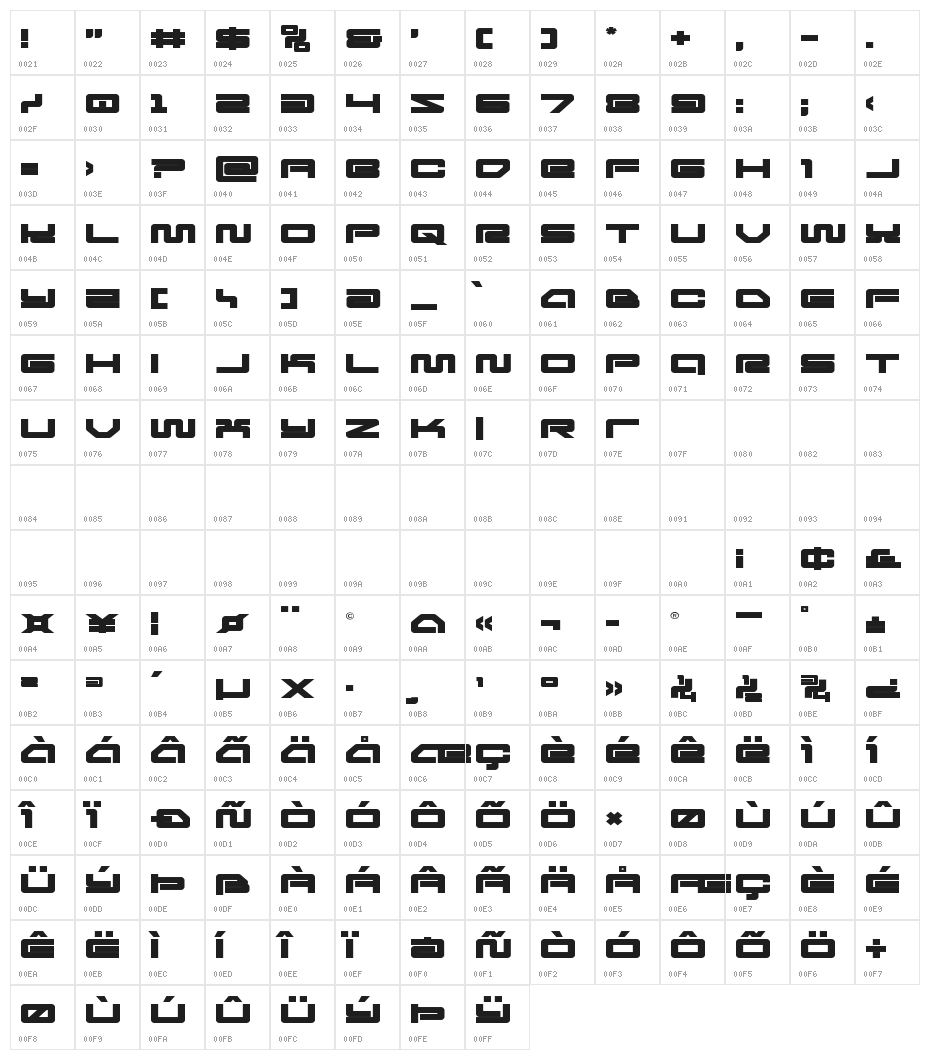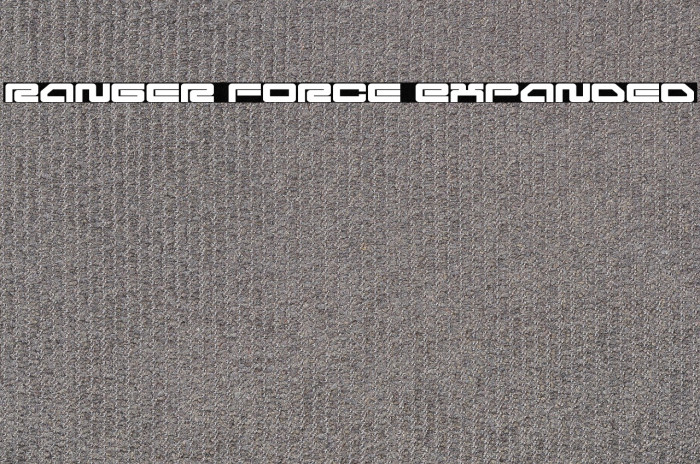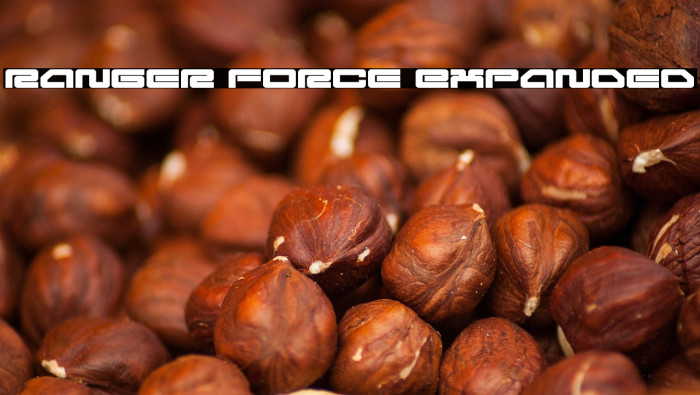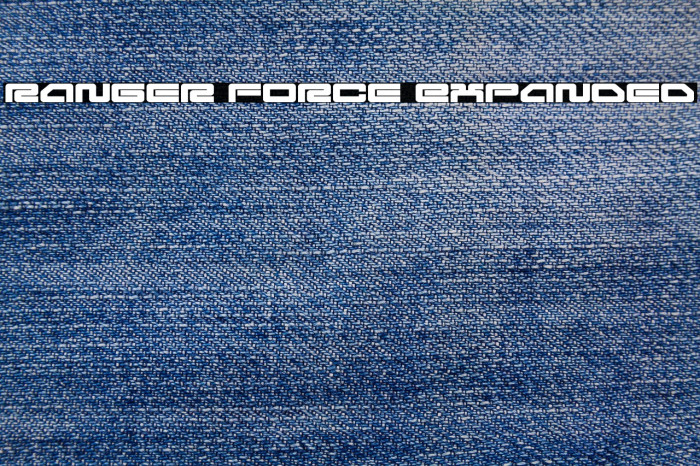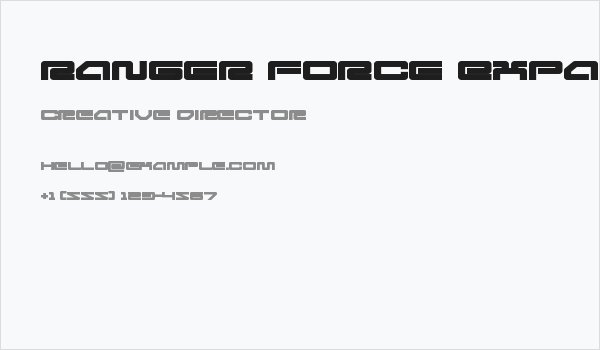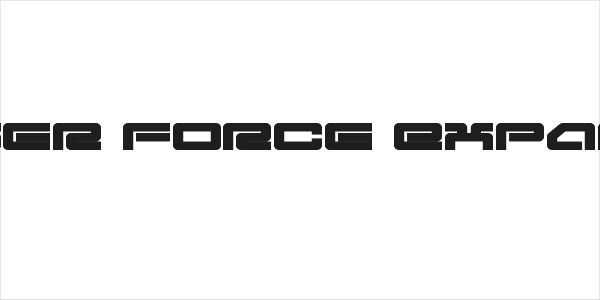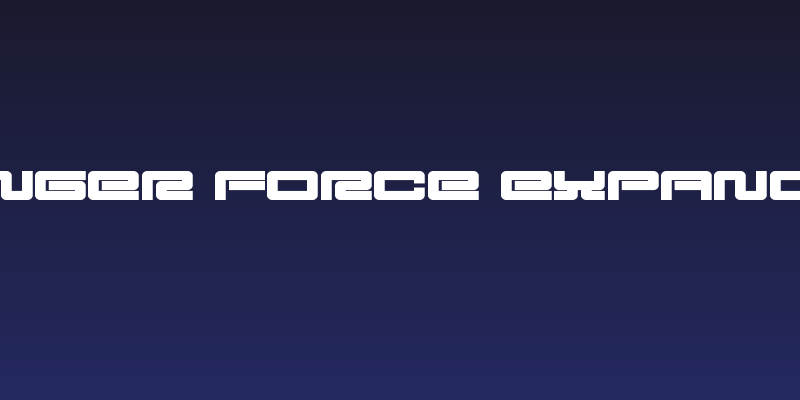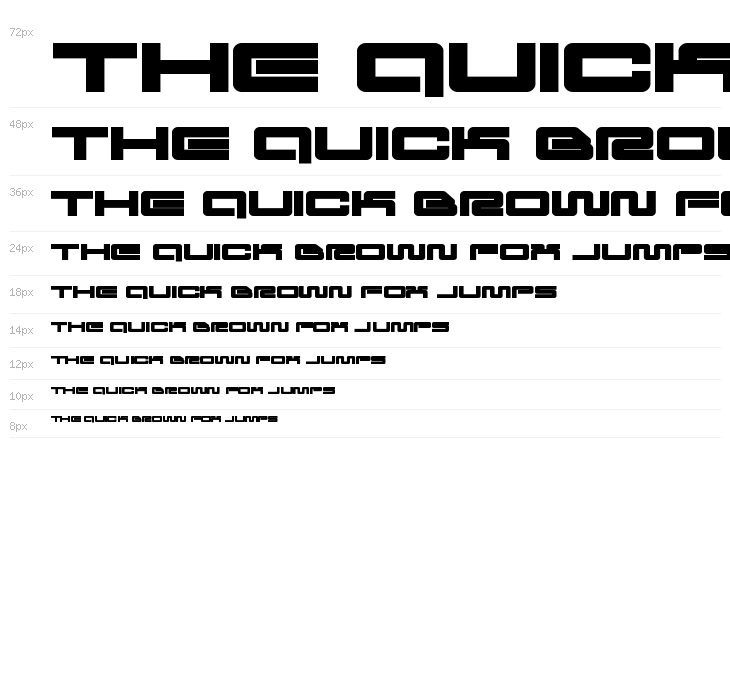
Ranger Force Expanded Font
Ranger Force Expanded Description
This font features a bold, futuristic design with a strong geometric influence. The characters are wide and blocky, with a consistent stroke width that gives it a solid and impactful appearance. The angular shapes and sharp edges contribute to its modern and tech-inspired aesthetic. The uppercase and lowercase letters maintain a uniform style, while the numerals and special characters are designed to match the overall theme. This font is ideal for projects that require a strong, contemporary look, such as technology branding, video game titles, or sci-fi themed designs.
| Proposed Projects | Ideal for technology branding, video game titles, sci-fi themes, and modern advertising. |